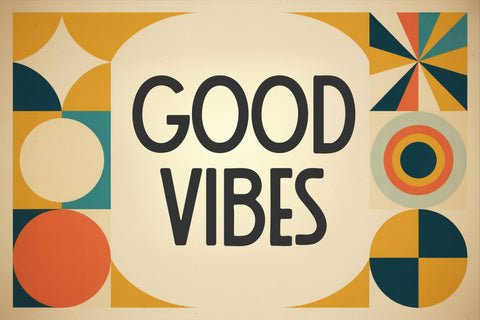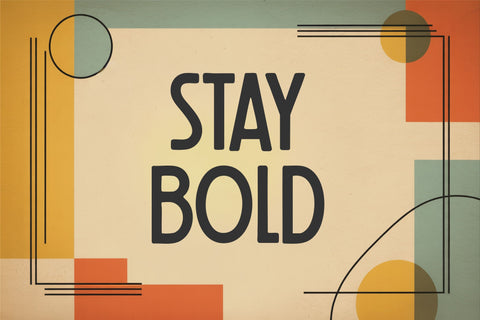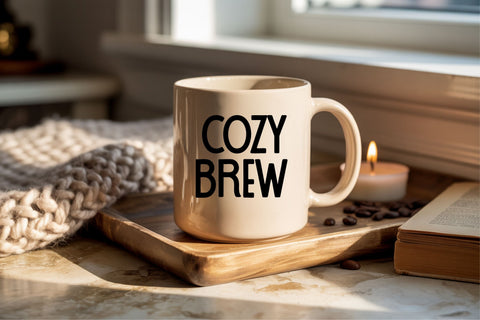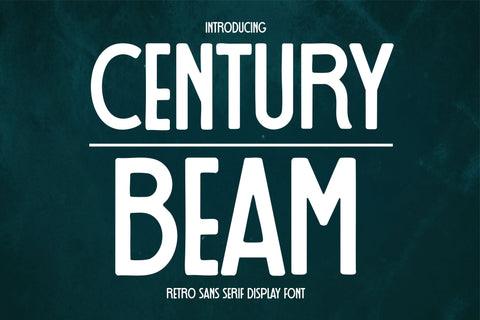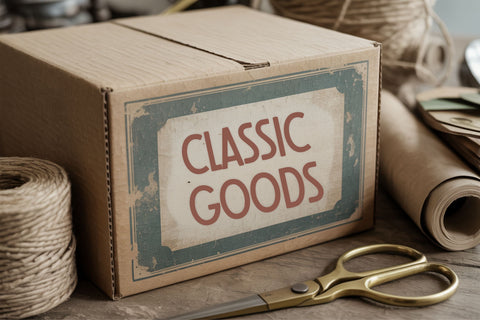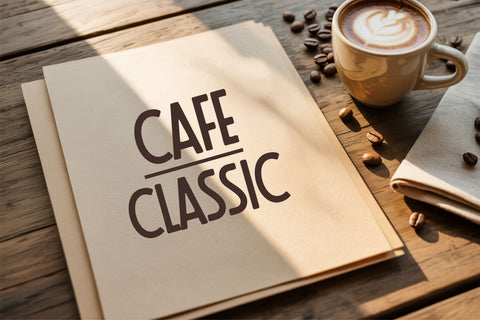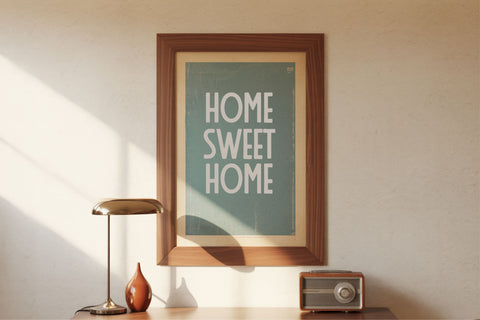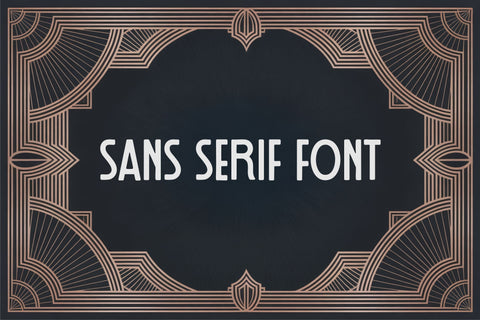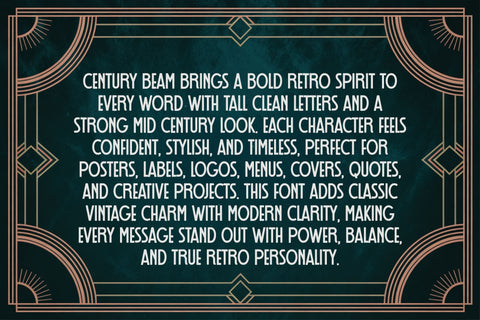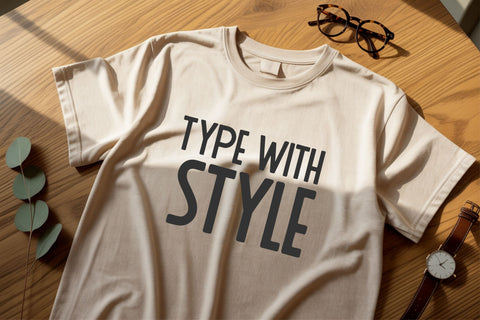
Century Beam Retro Sans Serif Display Typeface
Century Beam is a bold retro sans serif display typeface inspired by classic mid-century lettering. With tall proportions, smooth curves, and clean geometric structure, it brings strong vintage character to any design. Perfect for posters, menus, cafe branding, product packaging, labels, logos, T-shirt quotes, stickers, invitations, and wall decor. Its clarity makes it ideal for Cricut, Silhouette, Canva, Illustrator, and Procreate users. Century Beam combines classic retro charm with modern readability, giving your designs a timeless and stylish look.